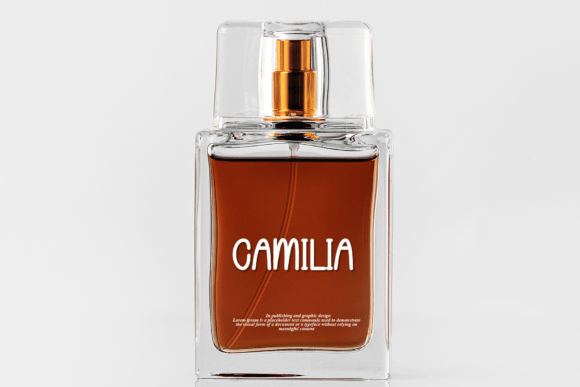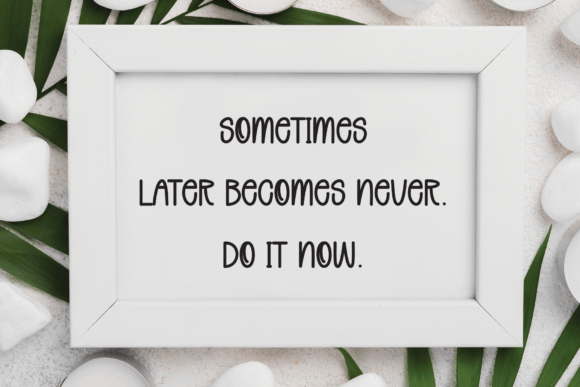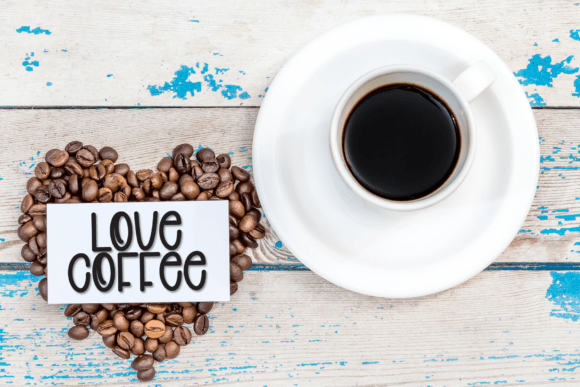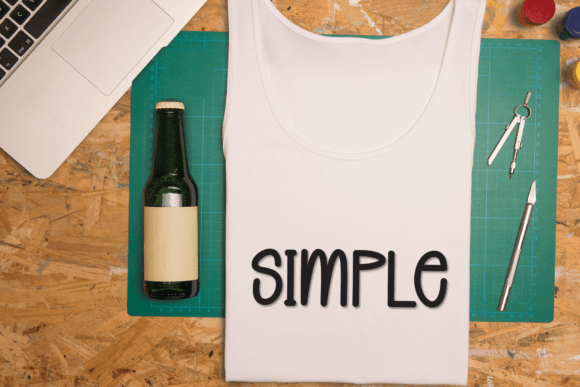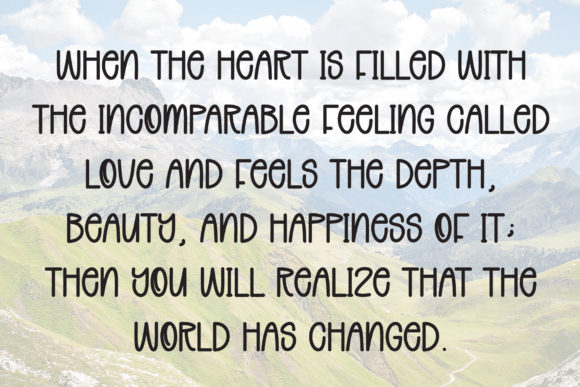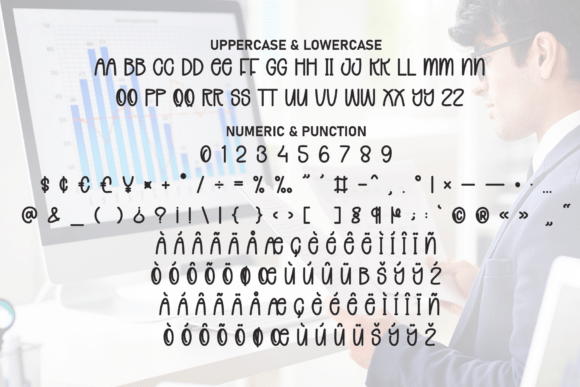
Introduction to Smart Metrics Font
Introducing a delightfully charming handwritten display font, accompanied by a warm, cheerful vibe.
Perfect for adding a playful twist to your wedding invitations, festive cards, or any creative design craving a splash of fun Our sweetly endearing font transforms every written word into a heart-touching message, promising an unforgettable impressiveness in every stroke.